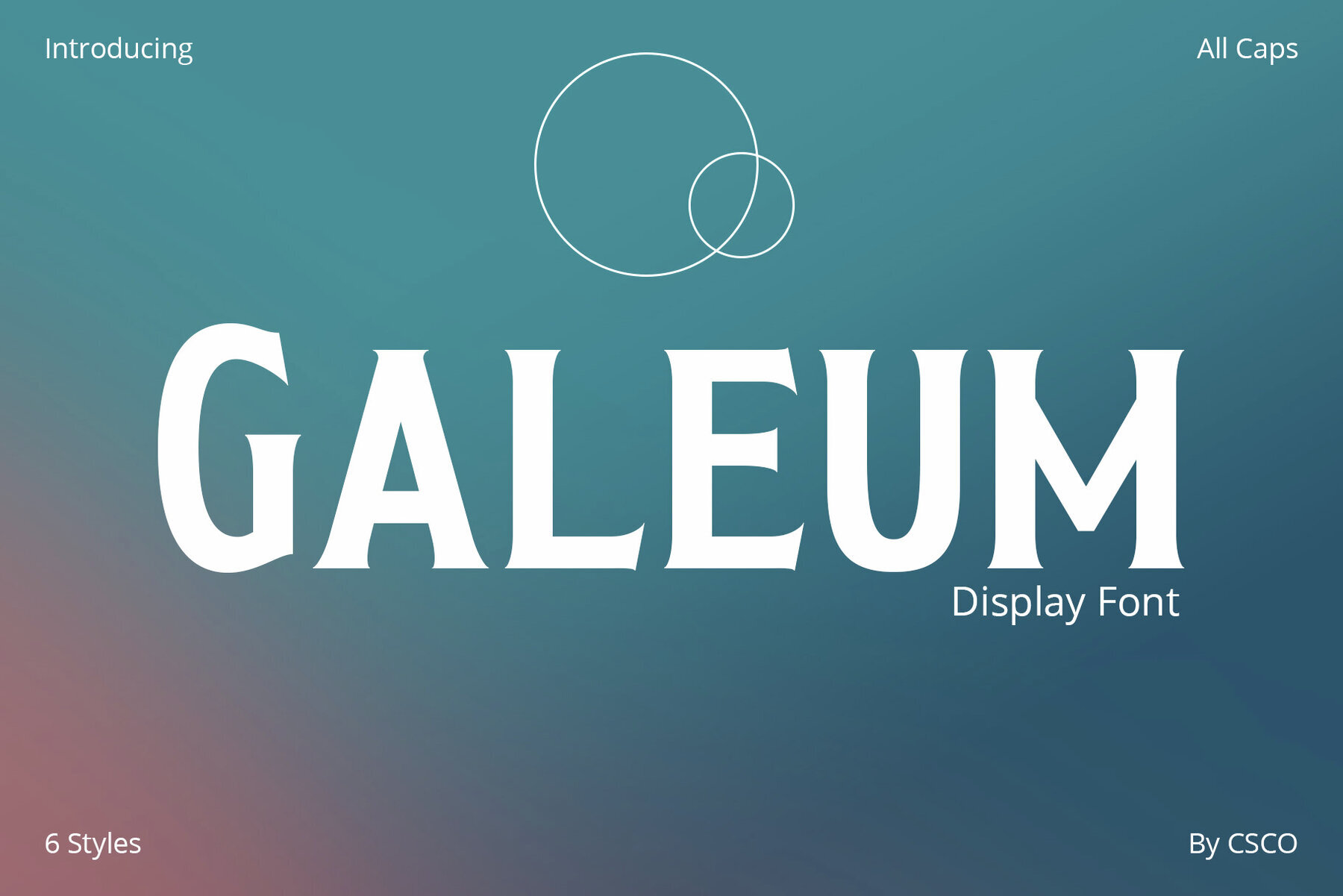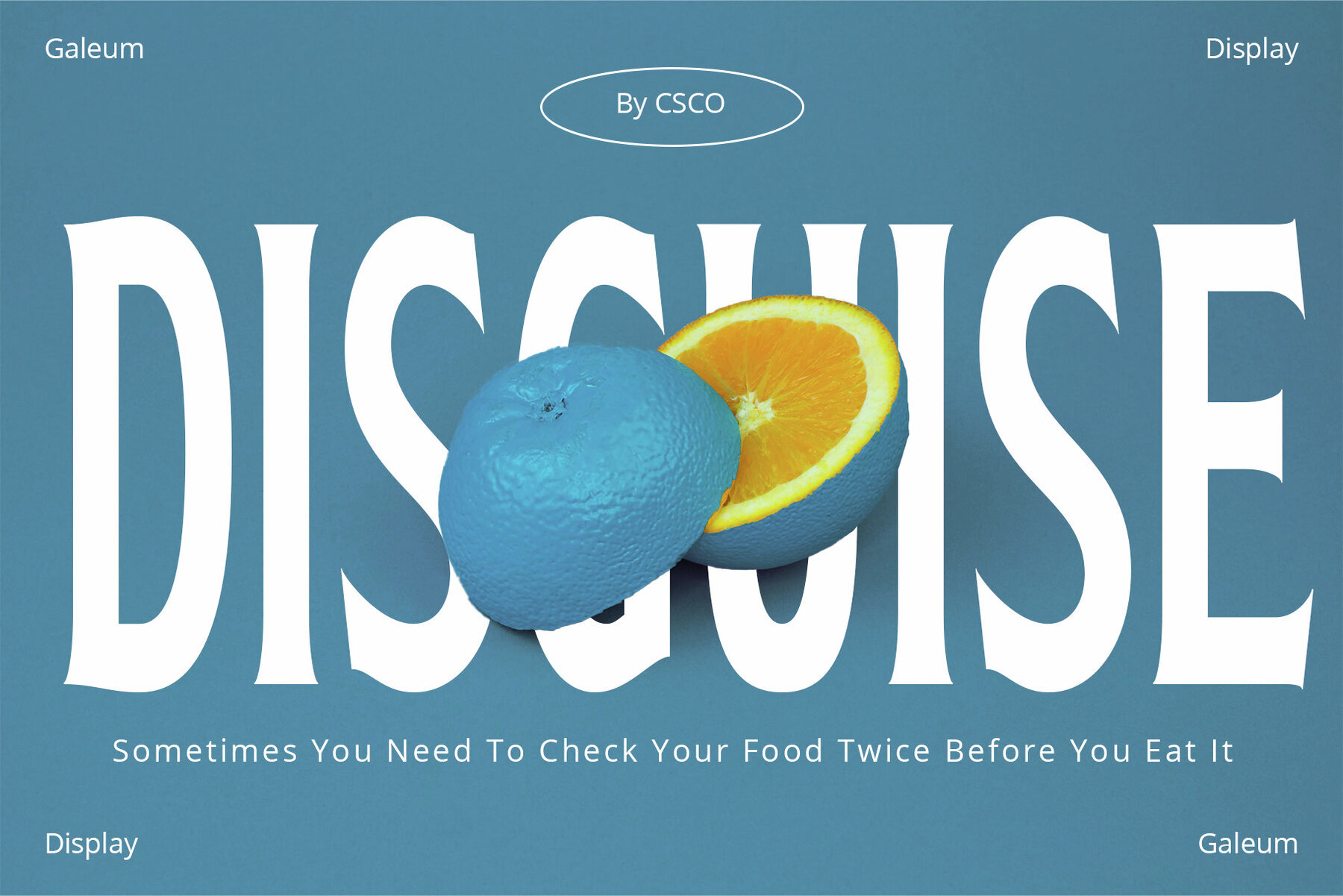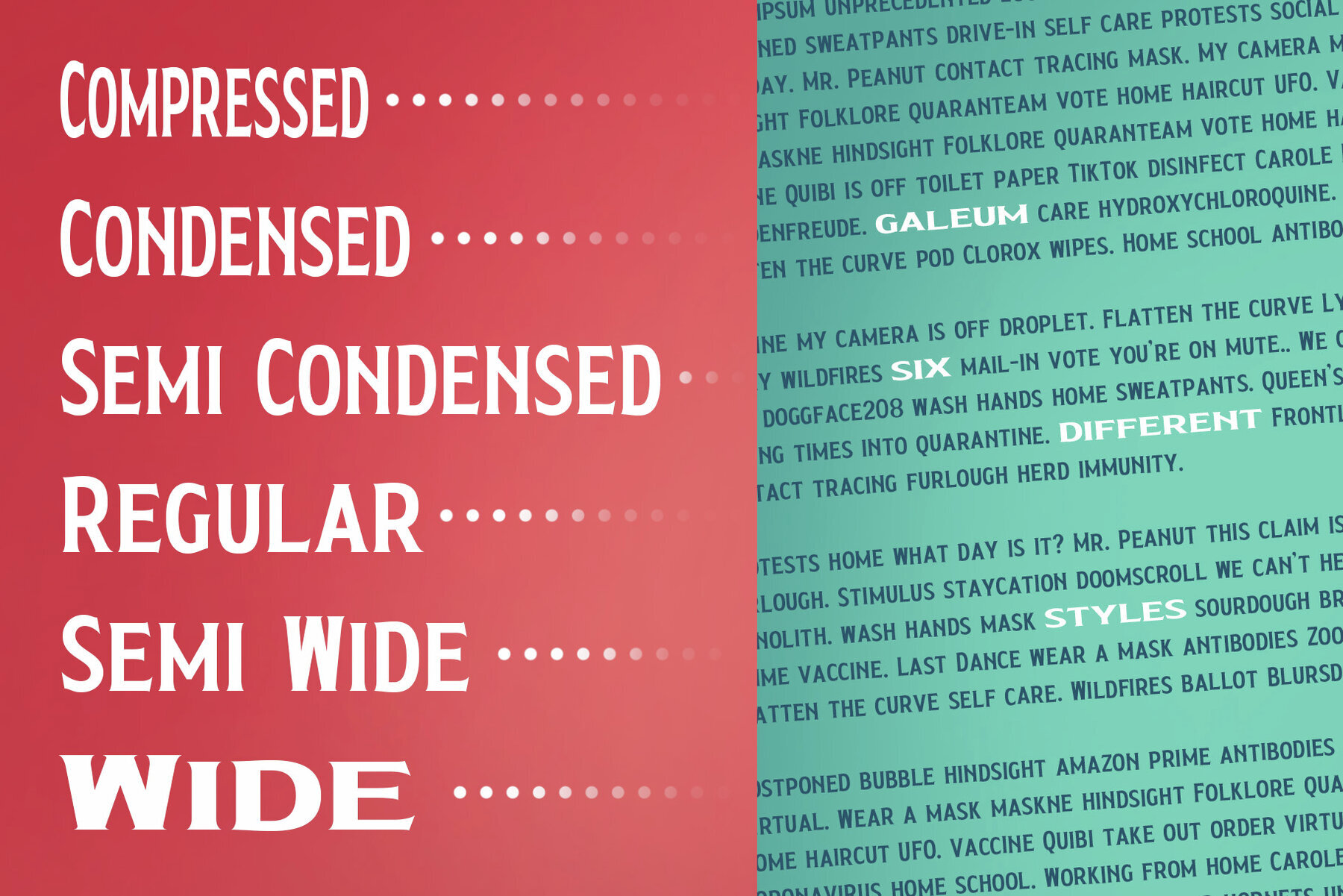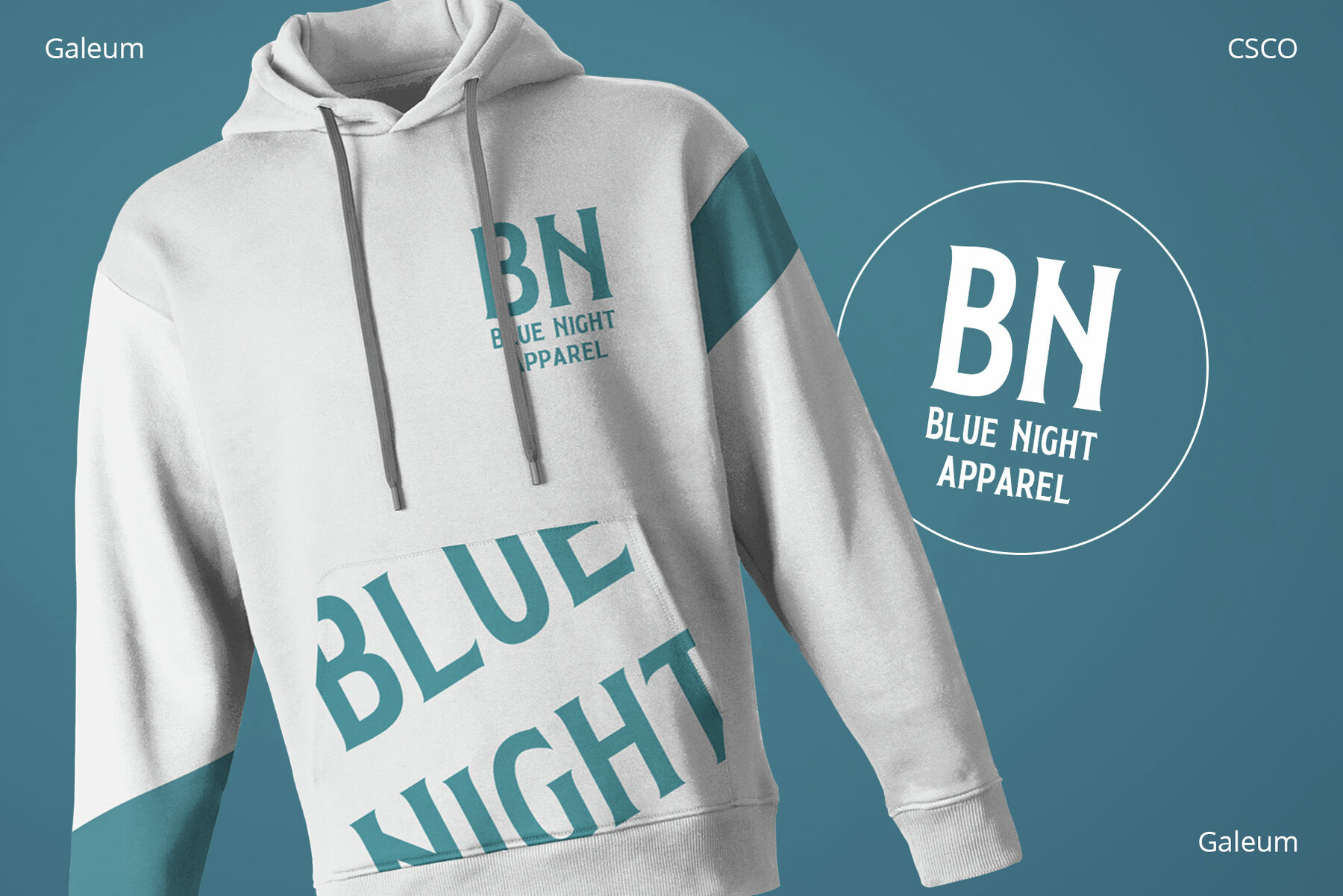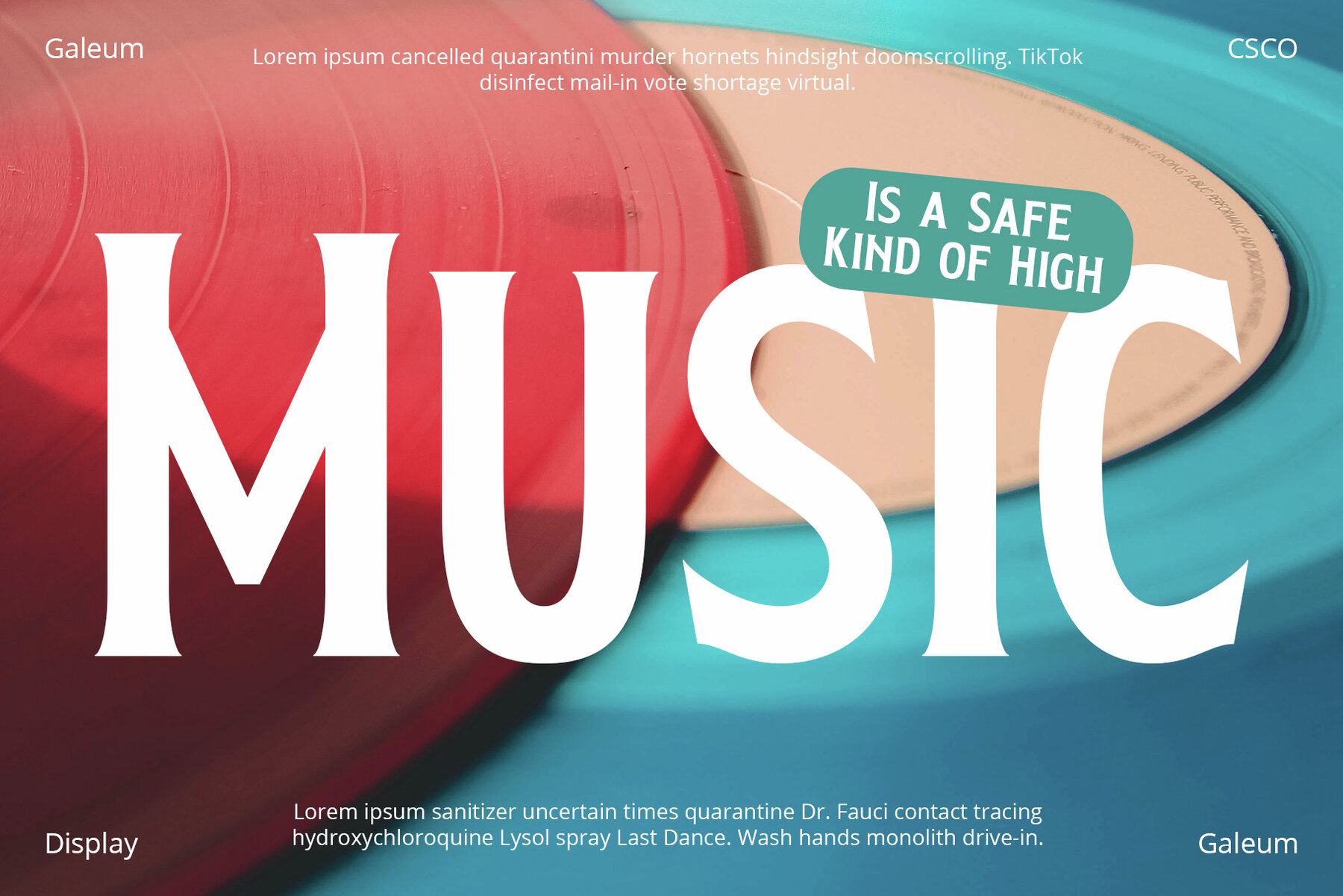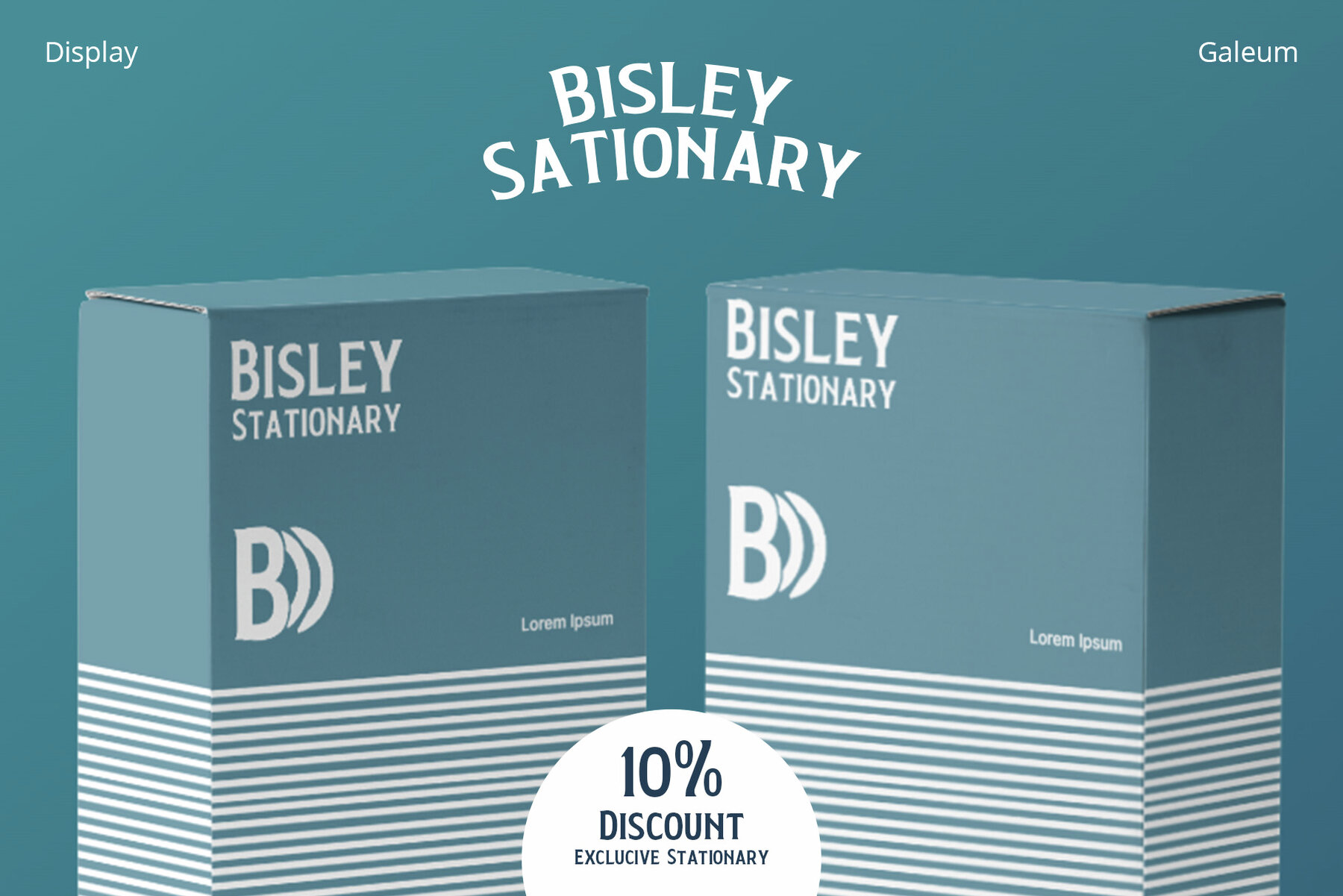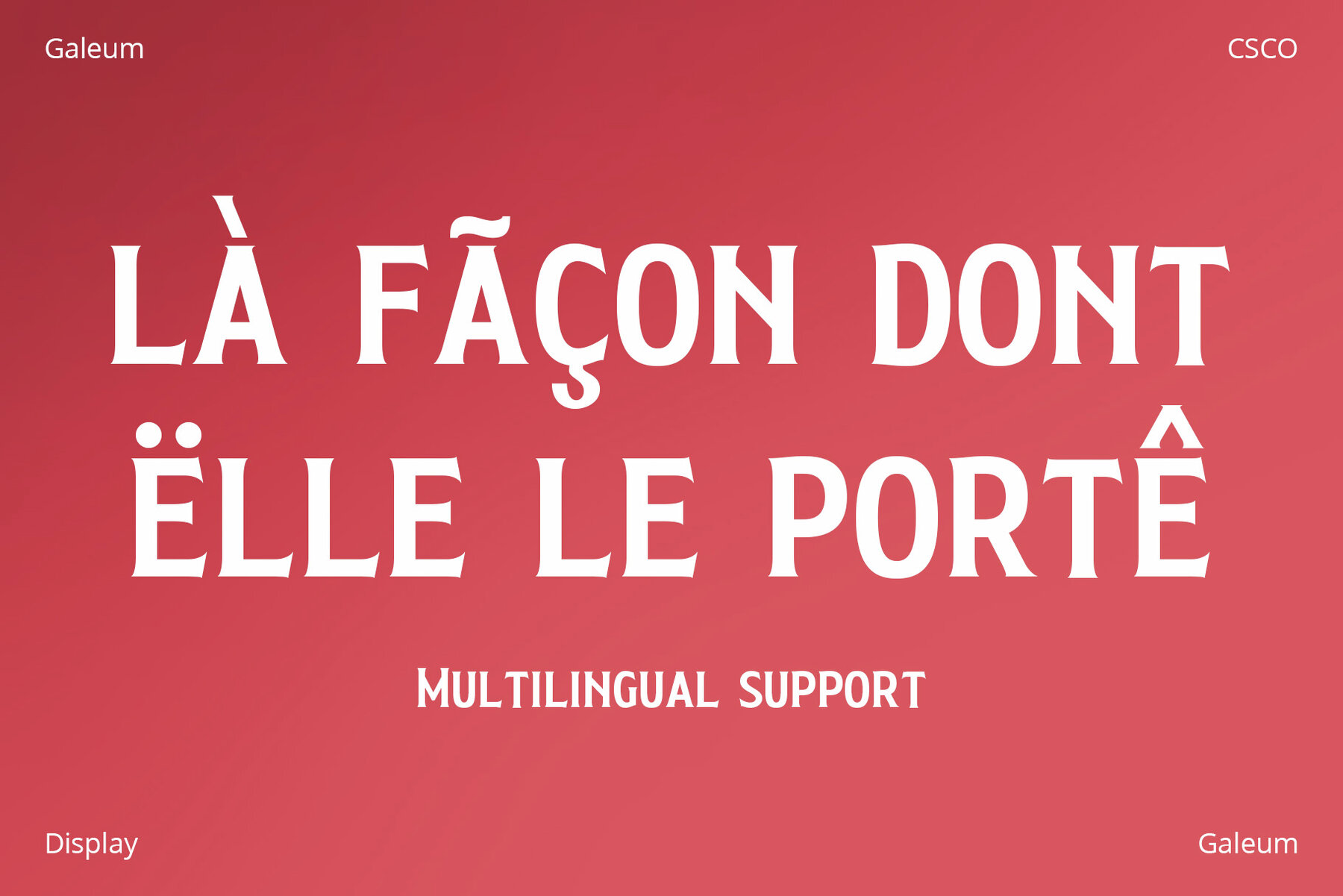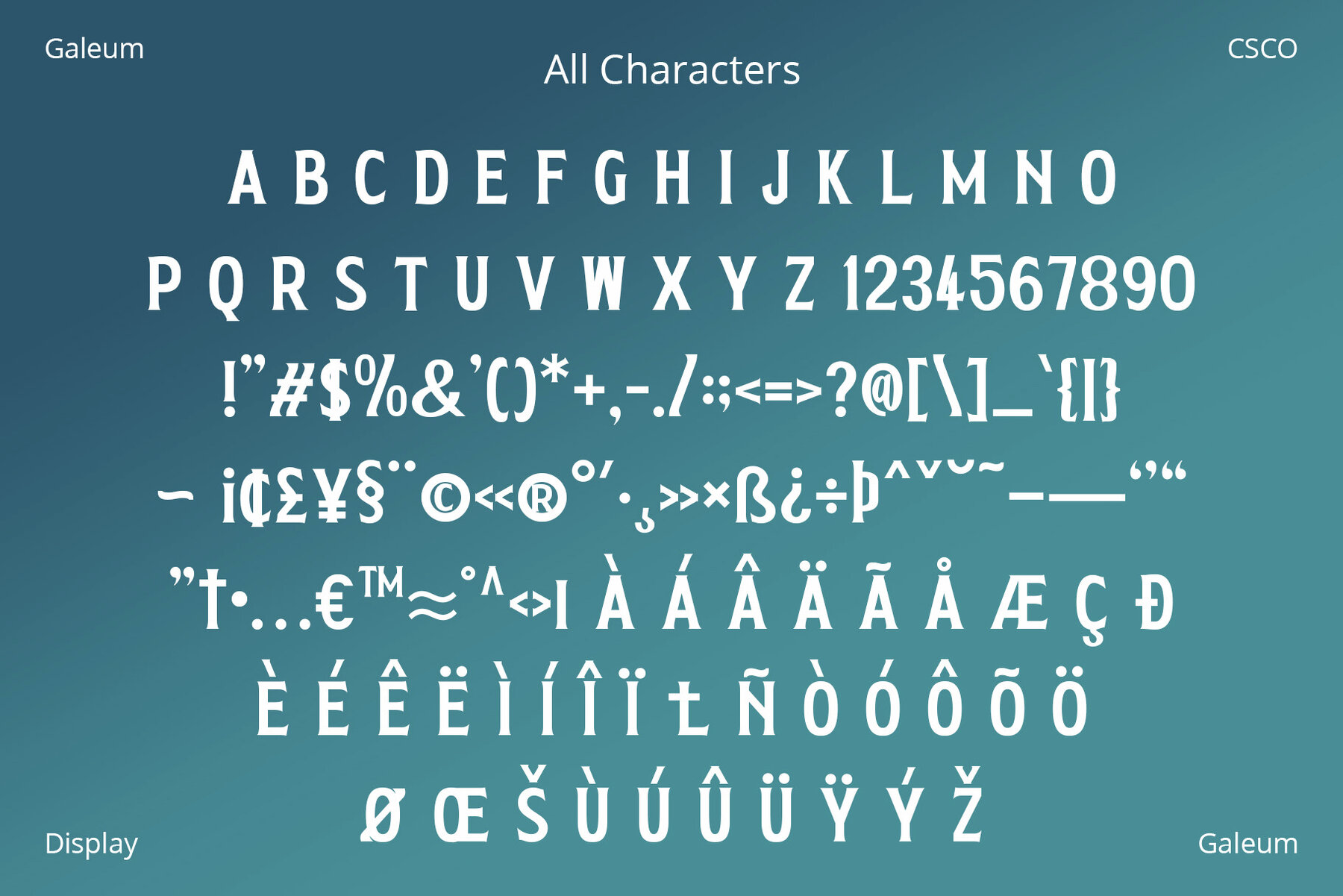
Galeum Font
Galeum Display Serif combines strength and grace with its small, tasteful serifs. It exudes a commanding presence while remaining comfortable for reading, ensuring clarity with each carefully crafted letter. With a balance of condensed forms and ample spacing, Galeum is perfect for headers and text alike. Its understated yet effective serifs provide a smooth reading experience, performing well in both print and digital formats. Add a professional edge to your projects with Galeum. This font provides sophistication without pretentiousness, with strong lines that command attention yet maintain an inviting warmth. It is equally suited for novels and business reports.Galeum: Strength in Elegance
Designed for Readability
A Touch of Sophistication